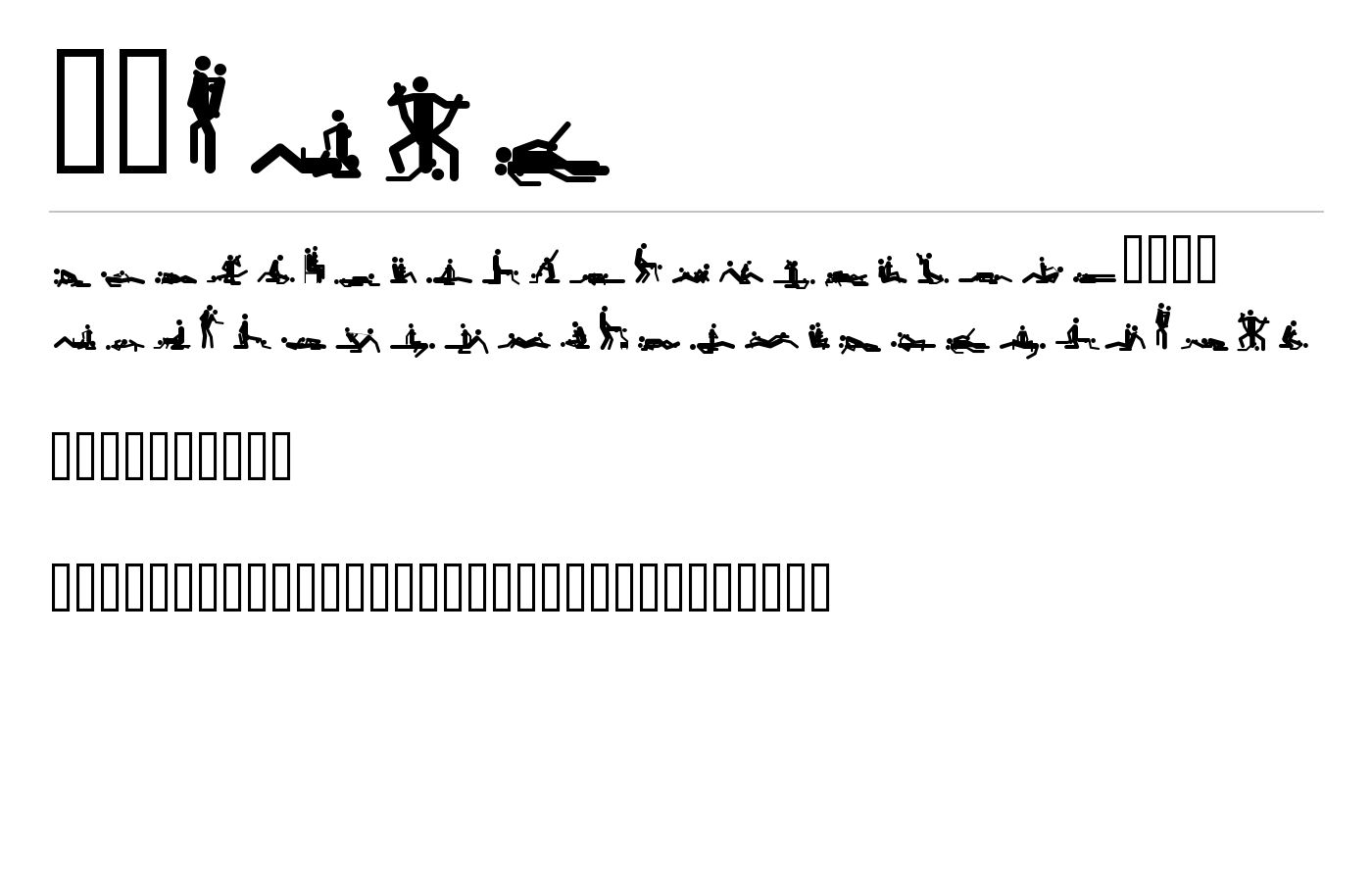
48ways Font is a playful and unique pictogram-inspired typeface composed of stylized human figures in various poses, making it more of a symbolic or decorative font than a traditional text face. Its bold, simple shapes offer a quirky, experimental vibe, ideal for creative projects that want to convey movement, interaction, or storytelling through visual icons. This font works best in eye-catching design elements, logos, or posters where unconventional, illustrative communication is desired.
48ways Font